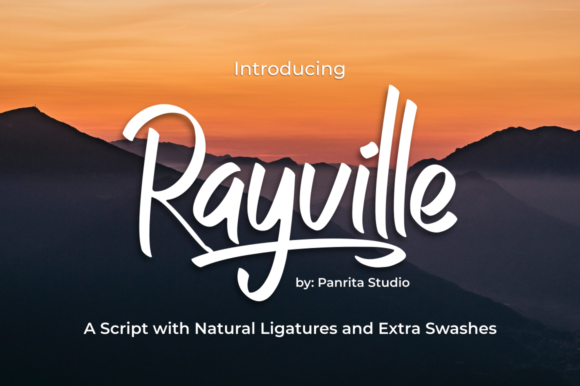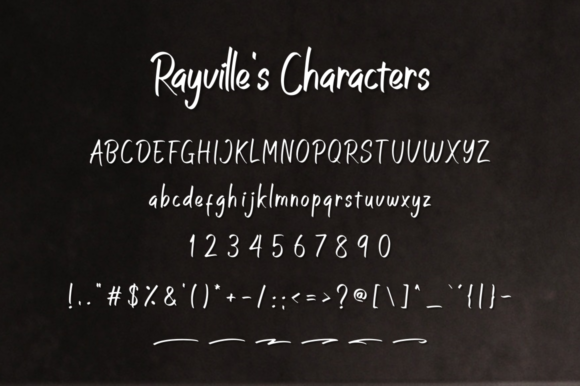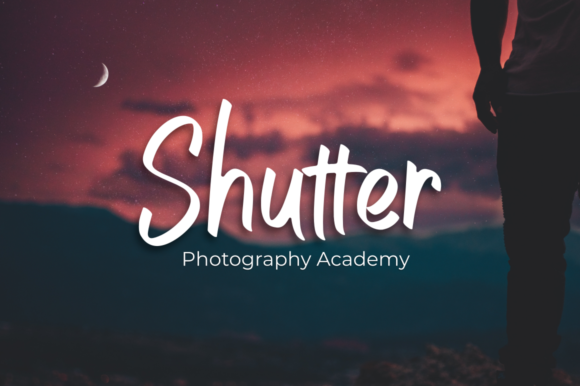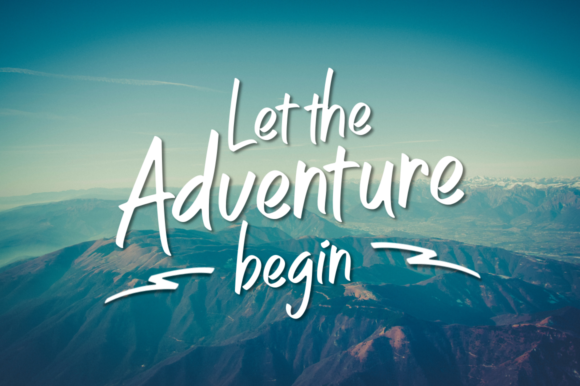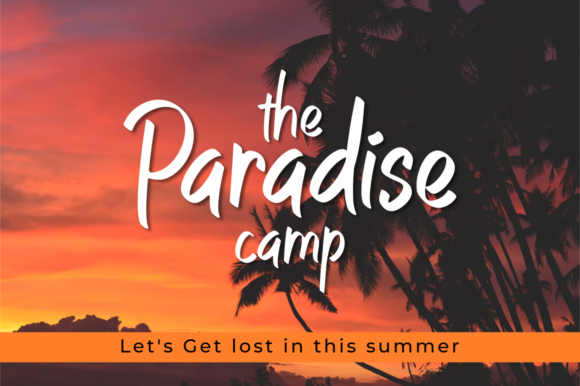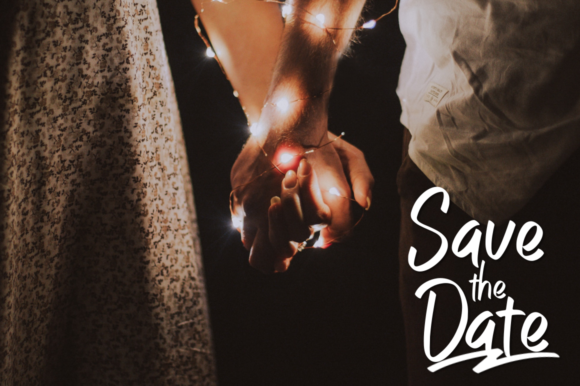
HomeScript FontsRayville Font Script Fonts Rayville Font FacebookXPinterestWhatsApp Rayville Font Poster 2 Rayville Font Poster 3 Rayville Font Poster 4 Rayville Font Poster 5 Rayville Font Poster 6 About Rayville Font Rayville is a modern and bold handwritten font with a beautiful feel. Get inspired by its sophisticated charm. DOWNLOAD ON CREATIVE FABRICAThis font is sold and delivered by Creative Fabrica. Font Canyon may earn a commission if you buy through this link. People also explored The Best Font Boutique Qiara Font Anchovie Font Hey Butterfly Font Katerina Font Font Magica Font Jelia Elbern Font Sunhine Tomorrow Font Yunnisa Font 409 0 TagsRayville Font Previous articleBrigham Script FontNext articleBengawan Font LEAVE A REPLY Cancel reply Comment: Please enter your comment! Name:* Please enter your name here Email:* You have entered an incorrect email address! Please enter your email address here Website: Save my name, email, and website in this browser for the next time I comment. Personal Use Free BD Medled Personal Use Free Read more about this font Clumed Personal Use Free Read more about this font BD Beans Personal Use Free Read more about this font Pumpkin Type Halloween Font Personal Use Free Read more about this font BLOG How to Install and Use Fonts on Windows, macOS, and Web Projects How to Install and Use Fonts on Windows, macOS, and Web Projects Fonts are a crucial part of design and branding. Whether you’re designing a... Free vs Paid Fonts: Why Investing in Premium Fonts Is Worth It Using Fonts in Digital Marketing: Tips to Strengthen Your Brand Identity How to Cut Any Font on Cricut: Convert a Font to SVG (Free)